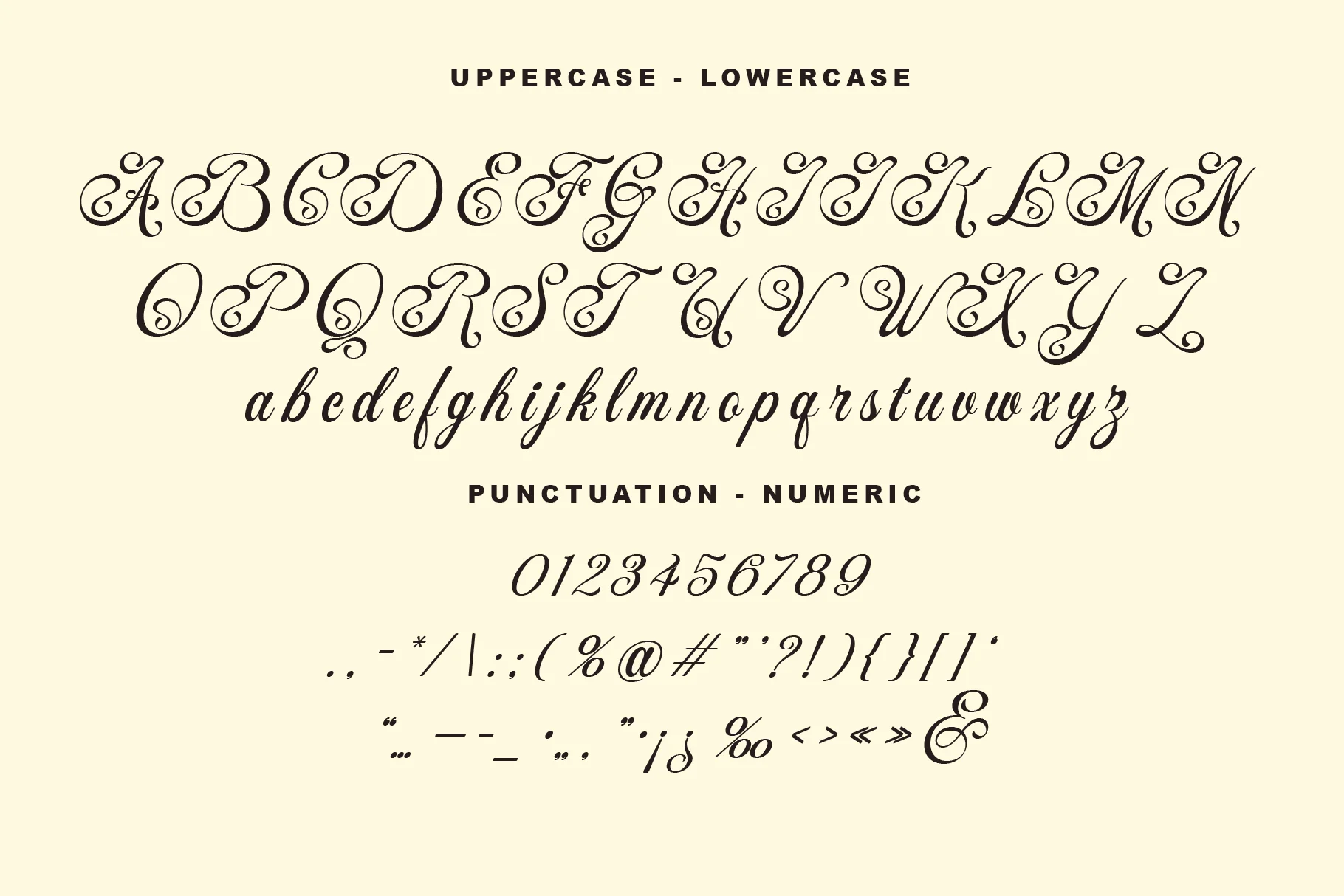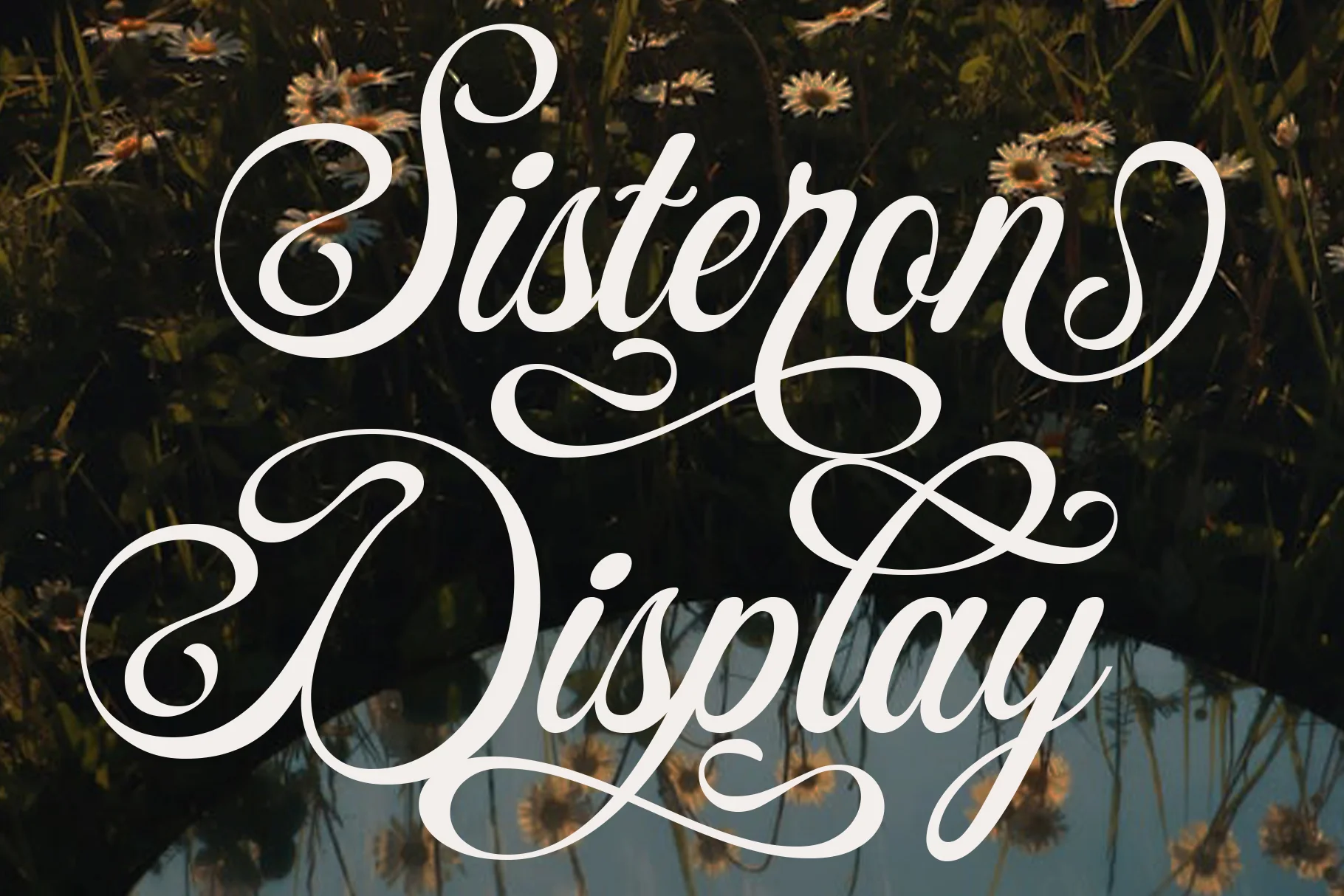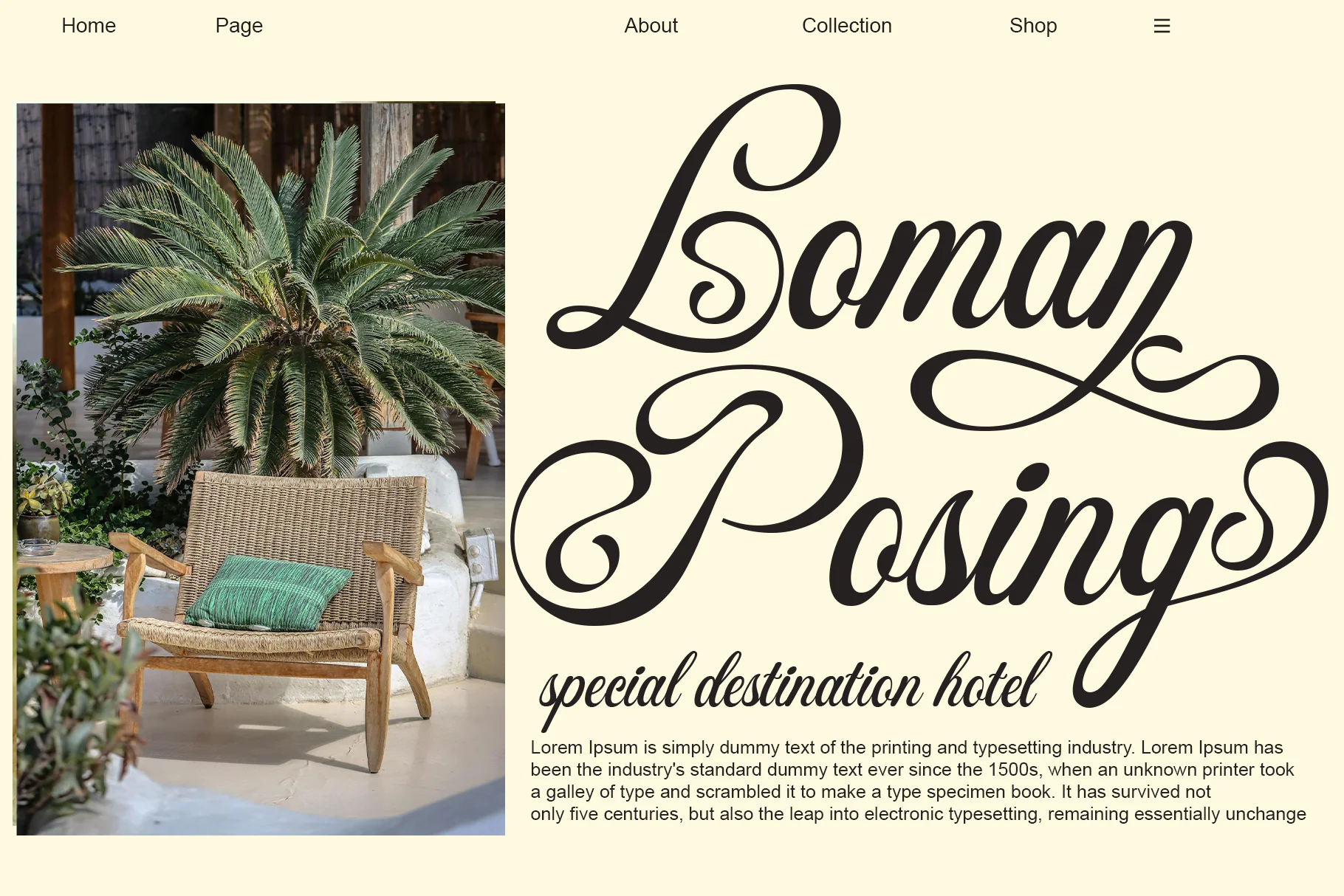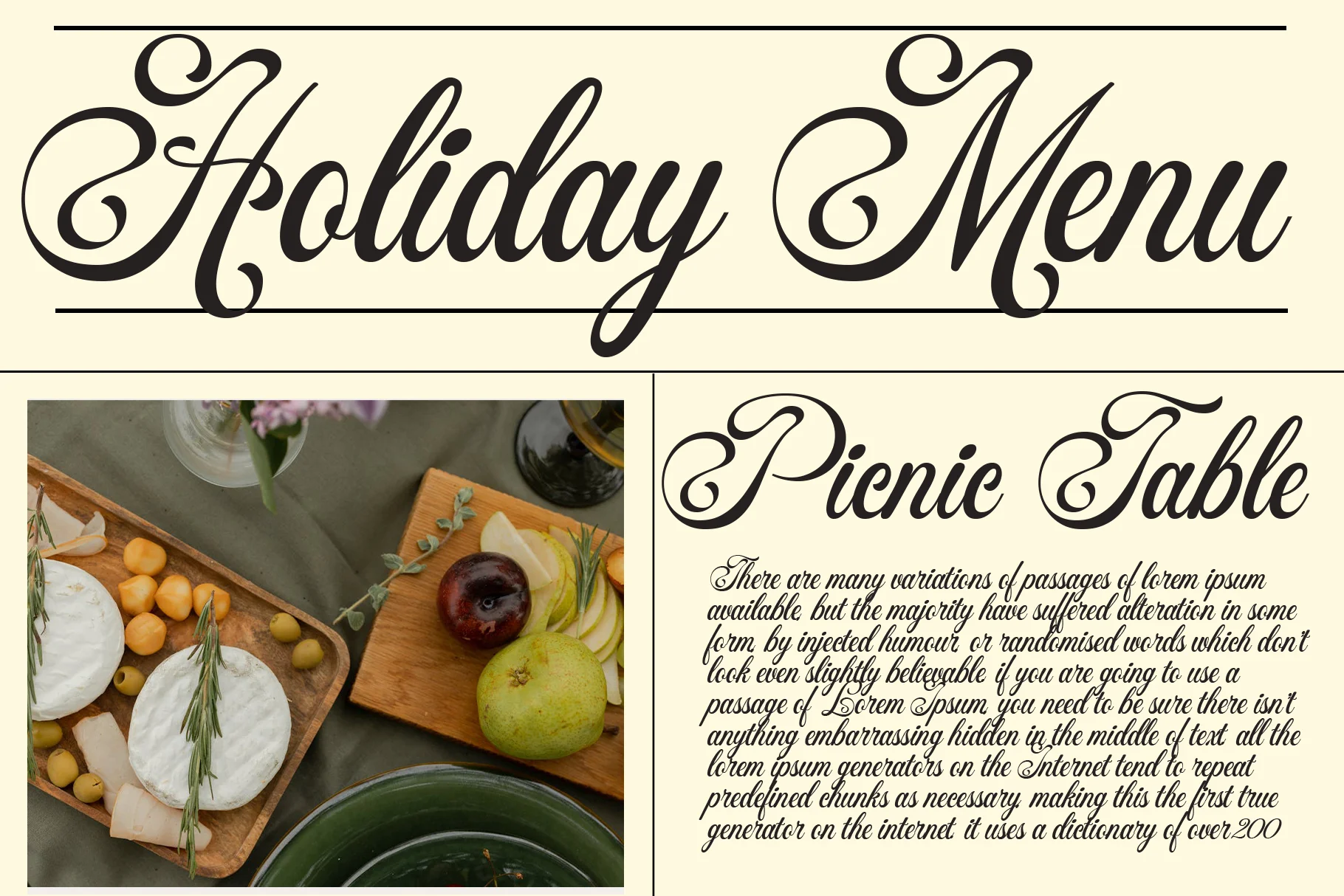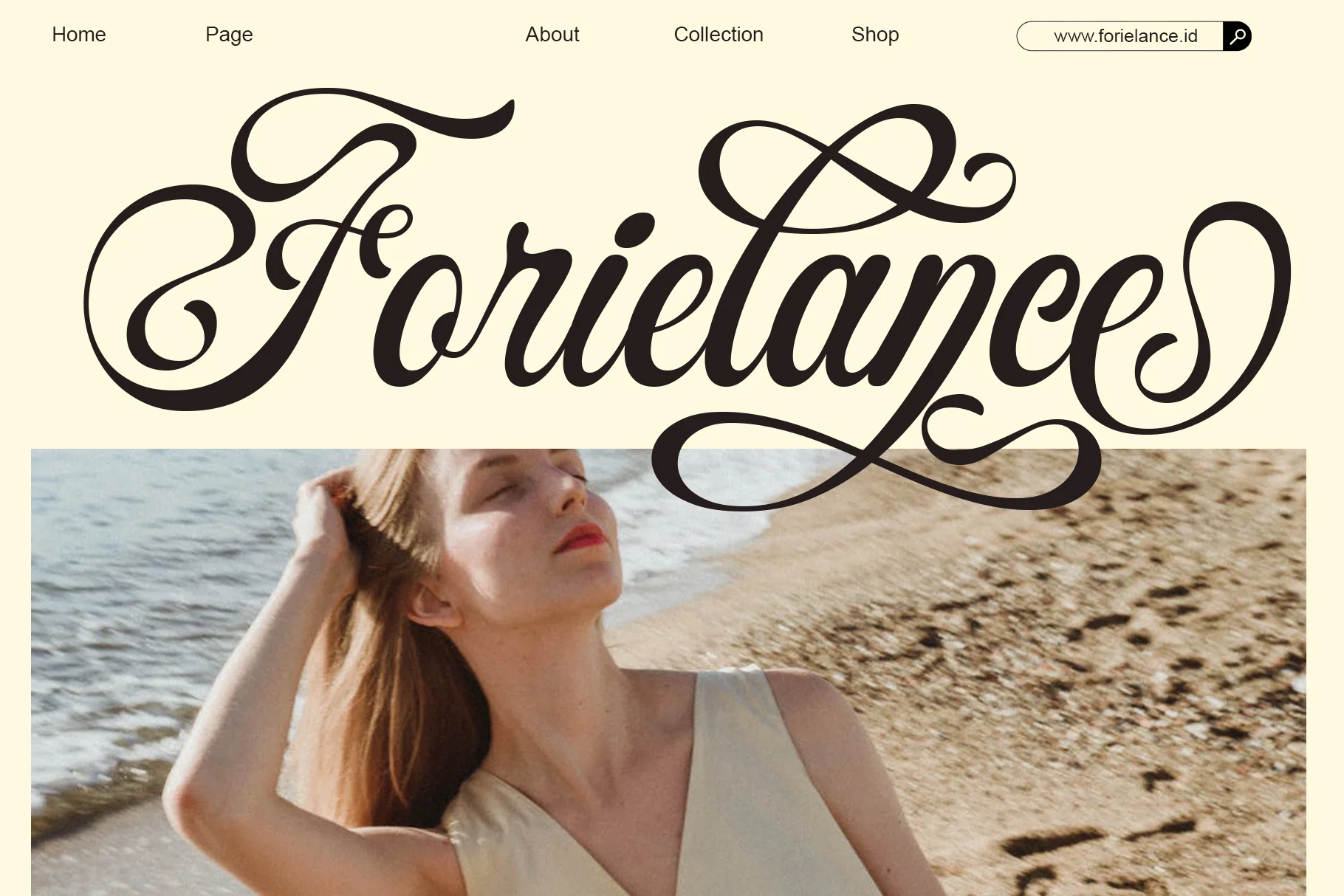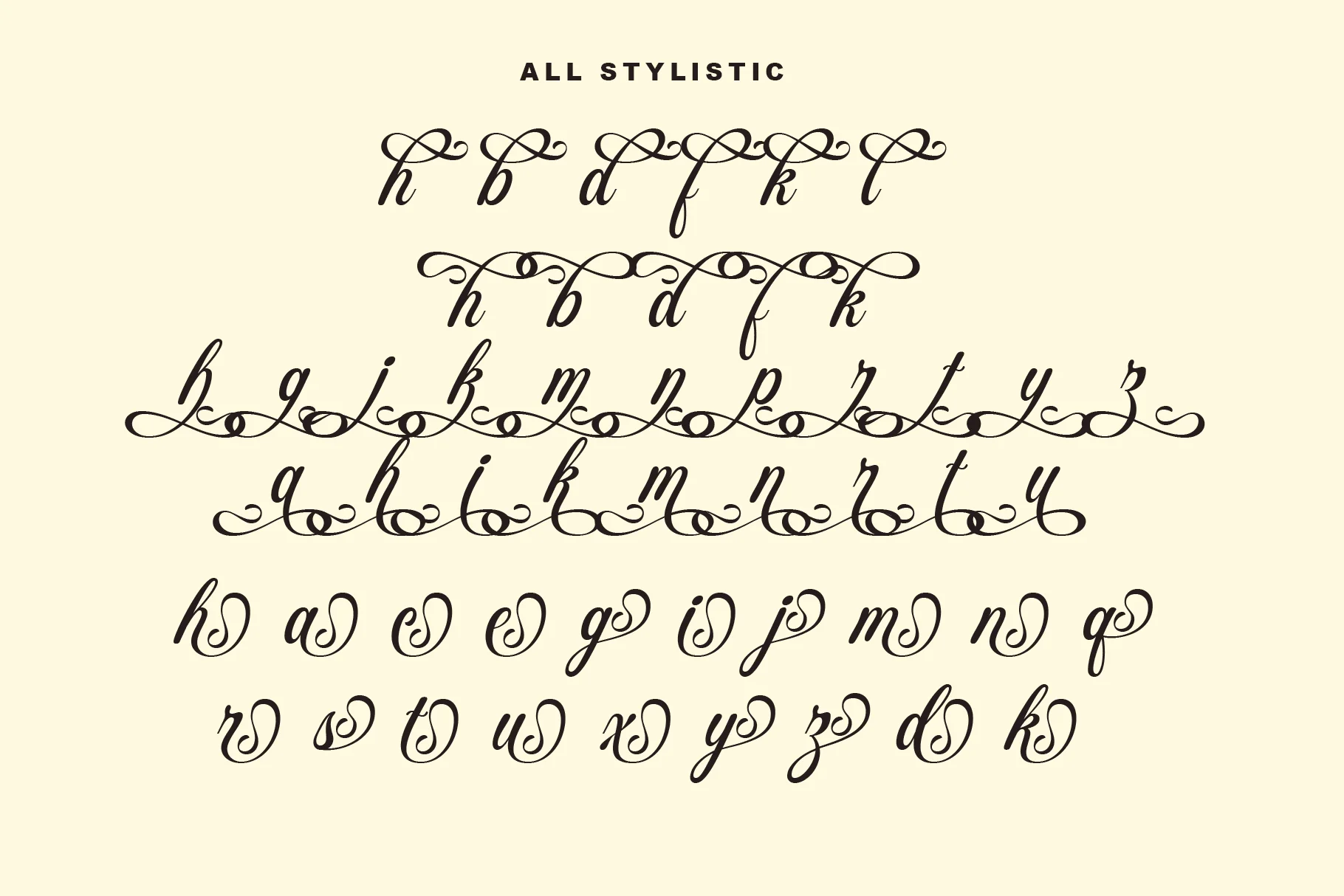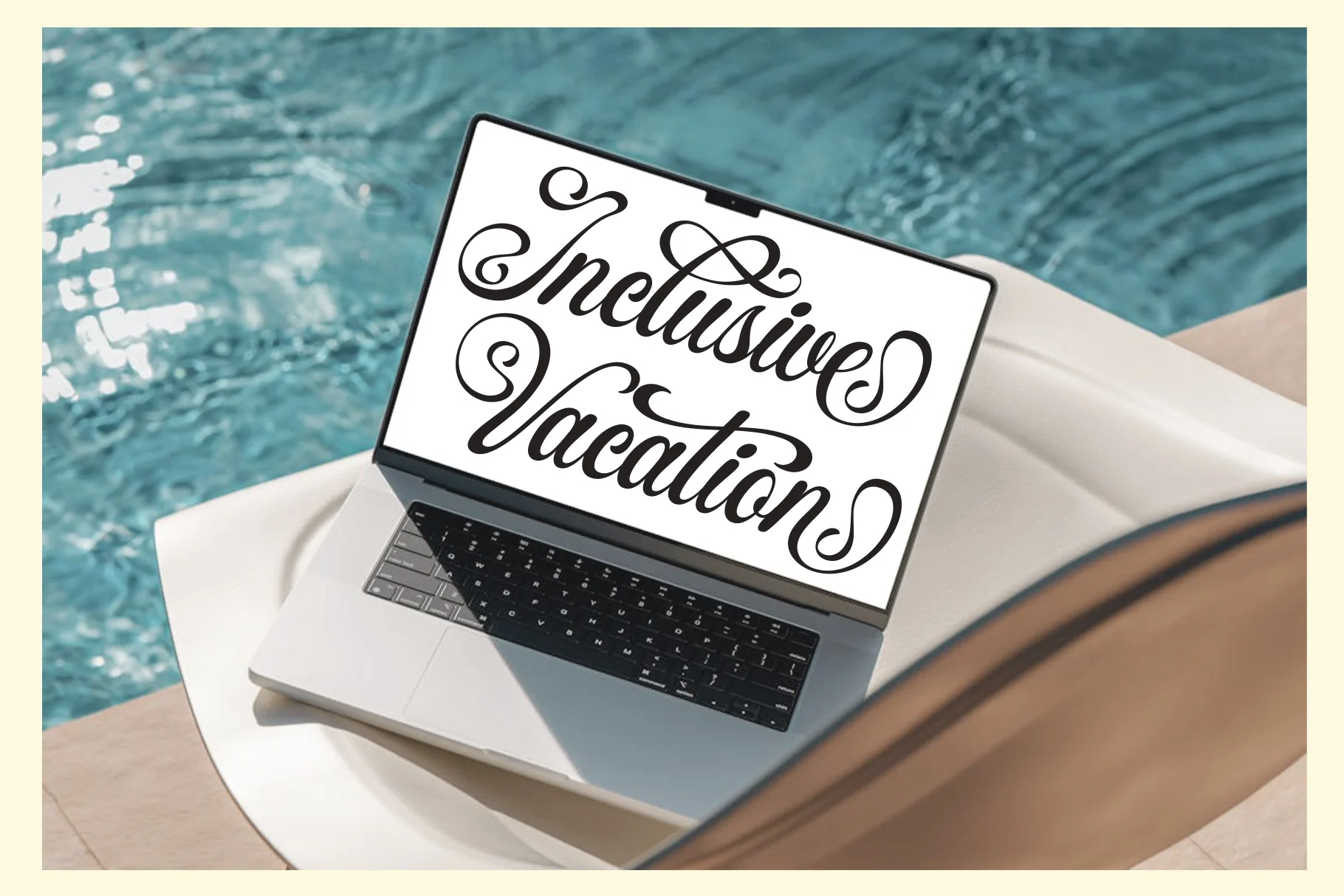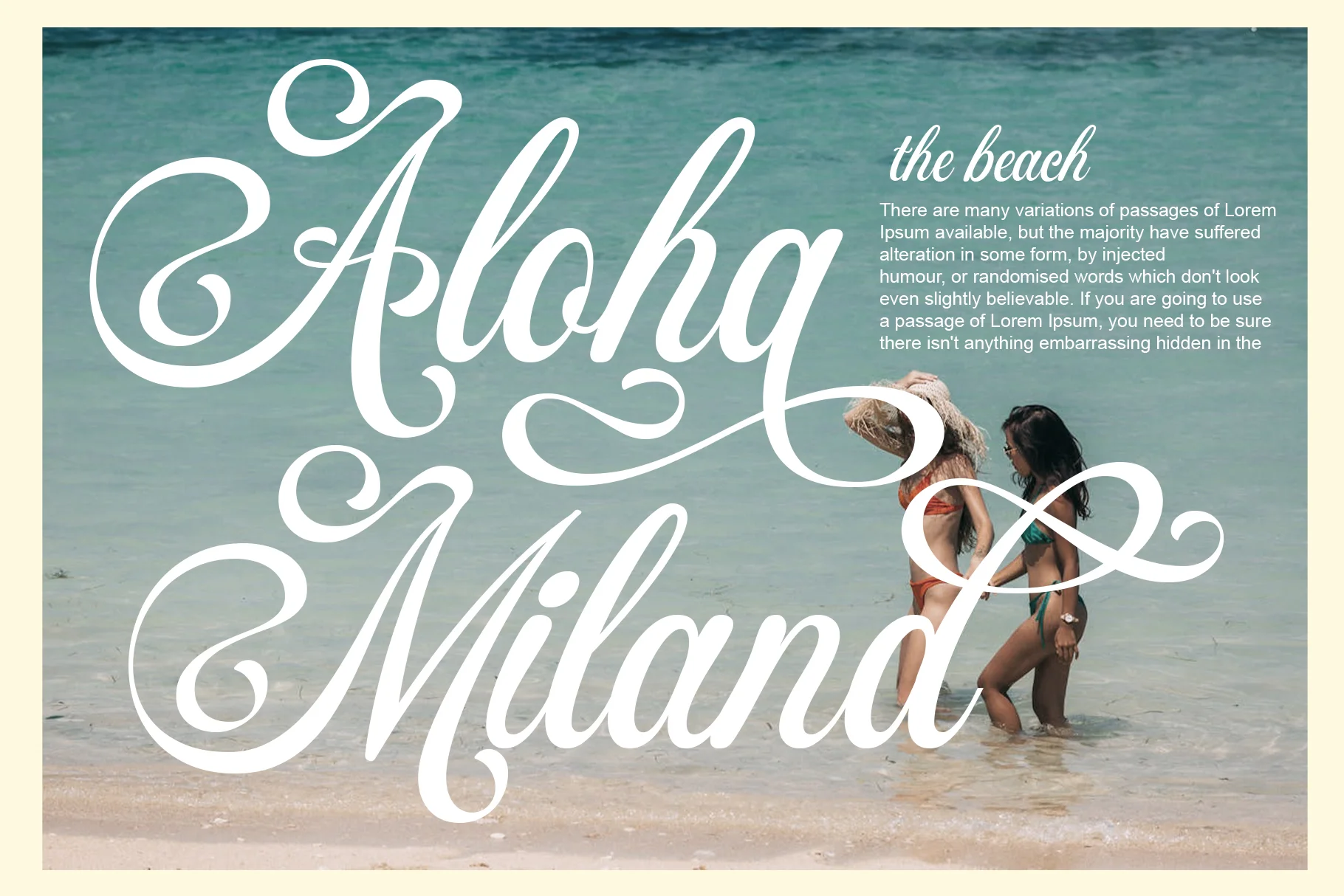
Sisteron
**Sisteron** will perfect for many project: book, magazines, logo, branding, photography, quotes, blog header, poster, advertisements, etc.
**Feature**
* Uppercase
* Lowercase
* Numeral
* Functional
* Multilingual
* Stylistic